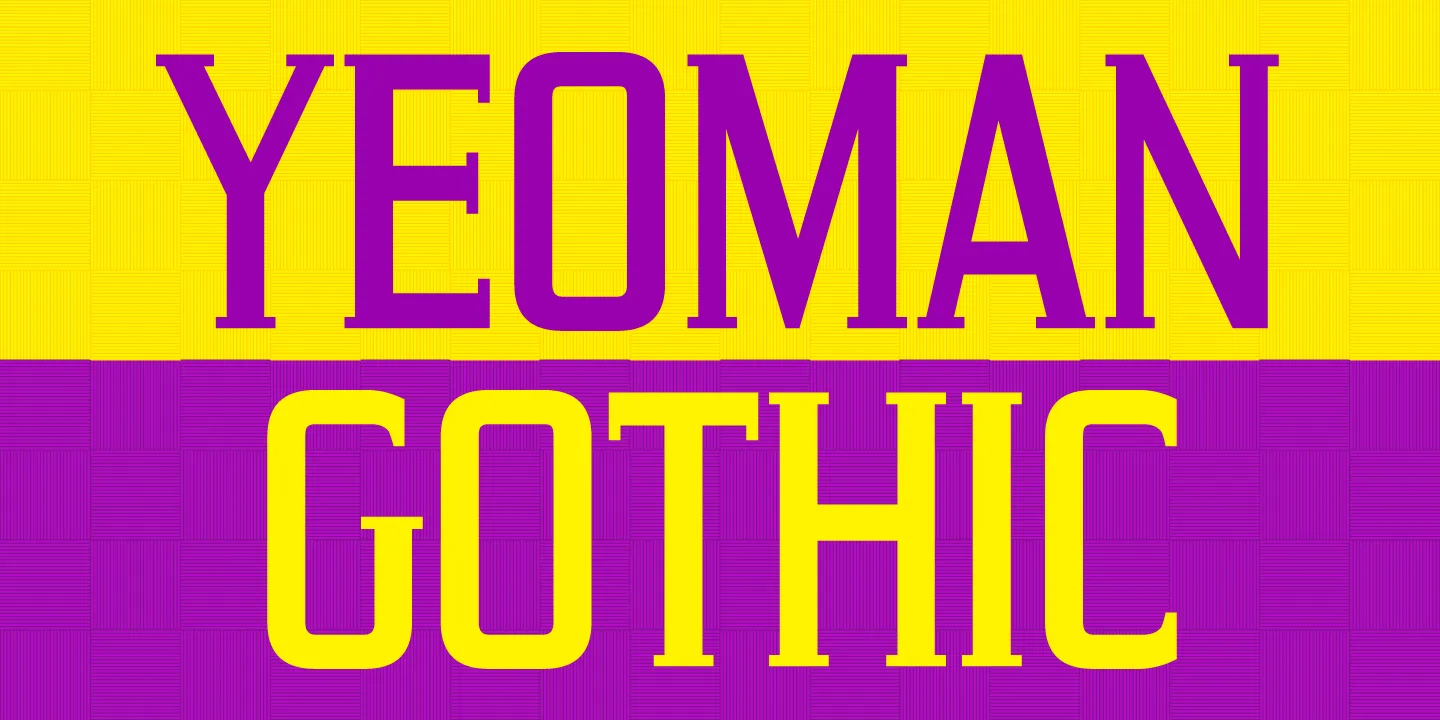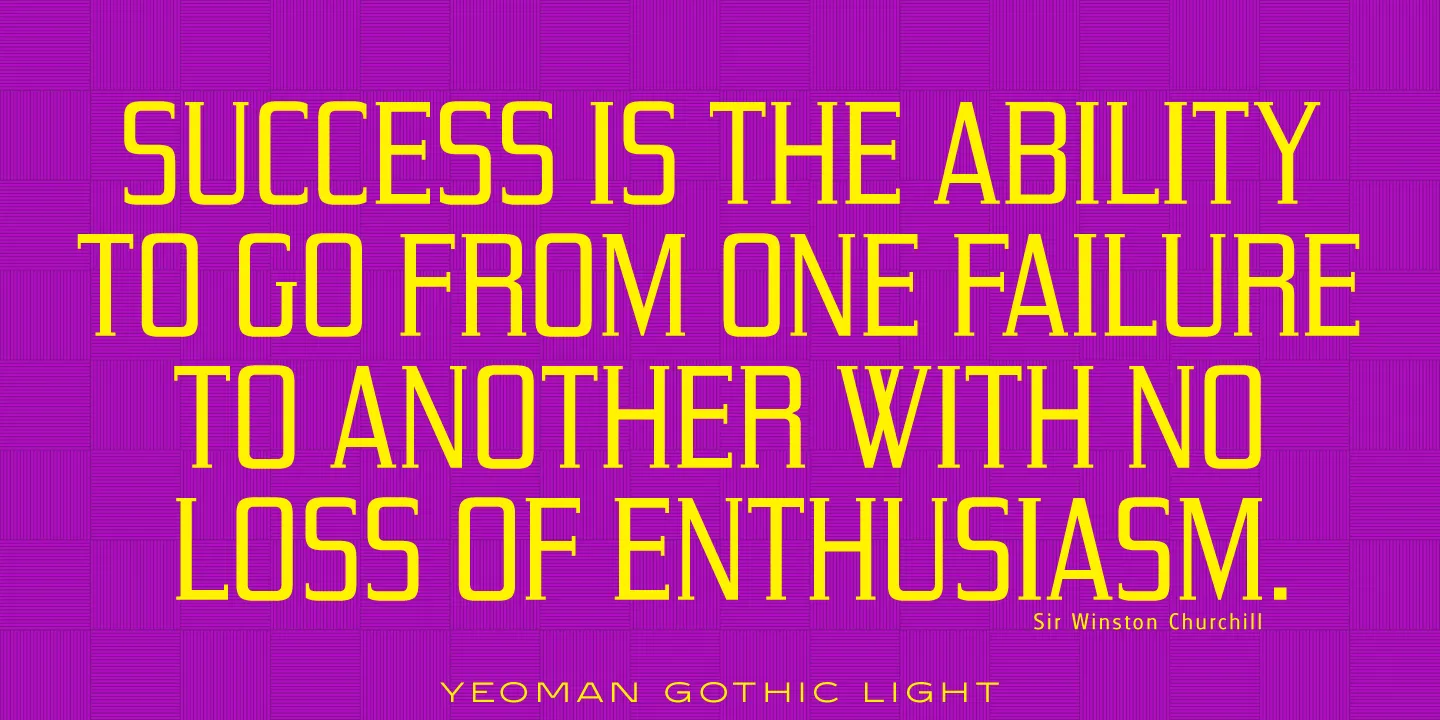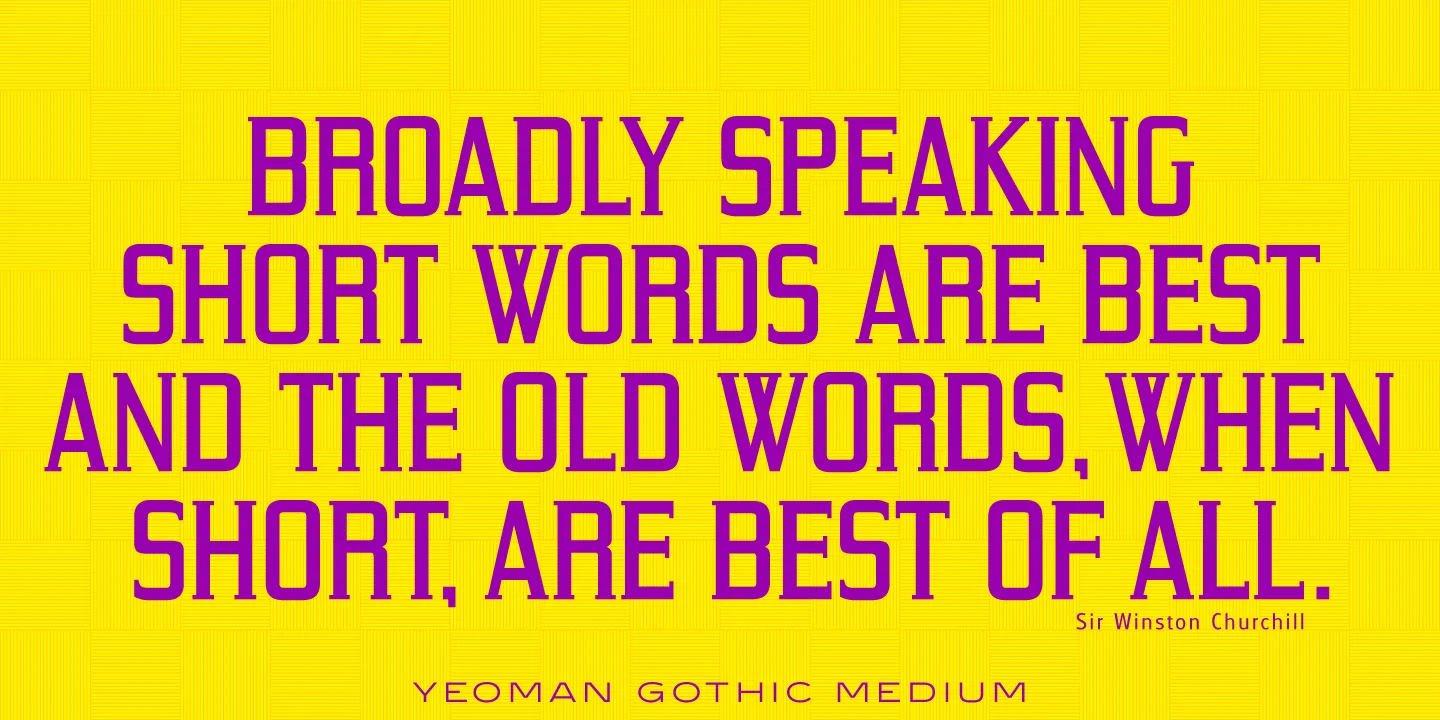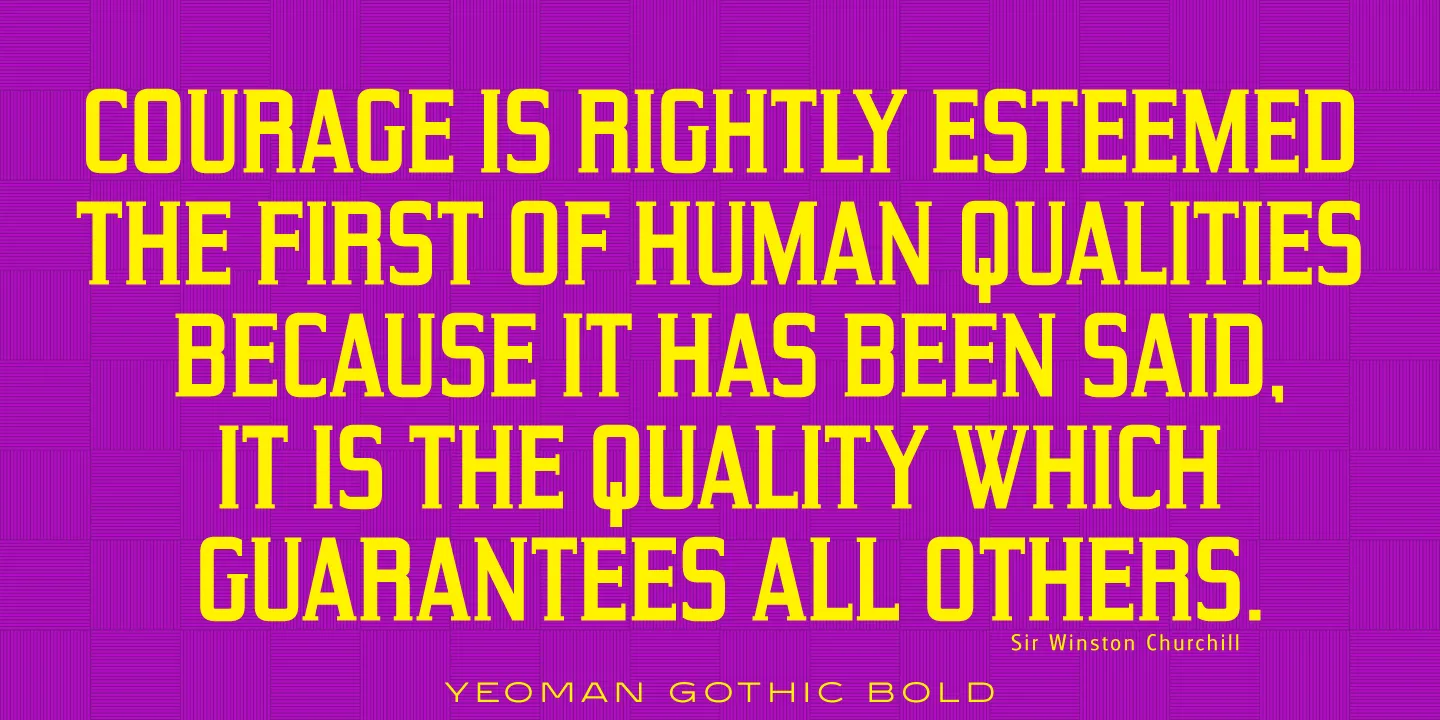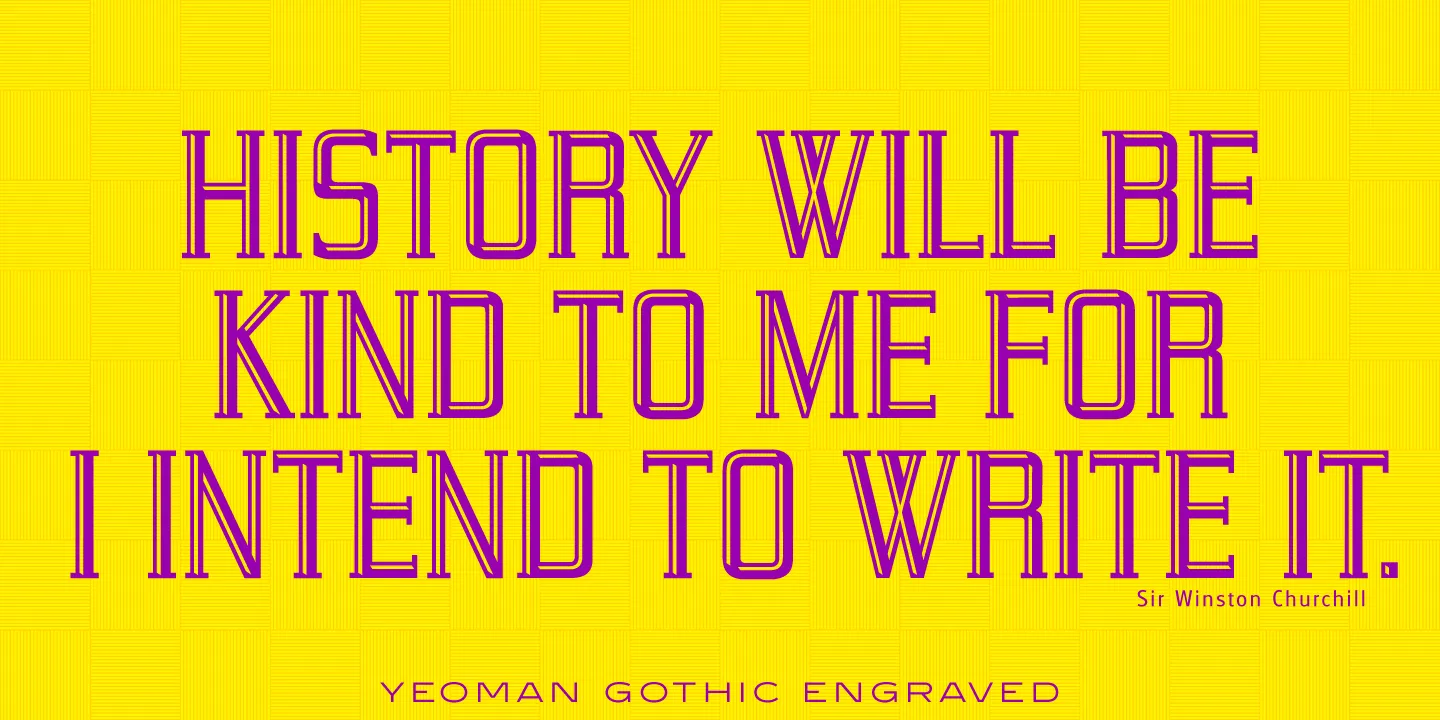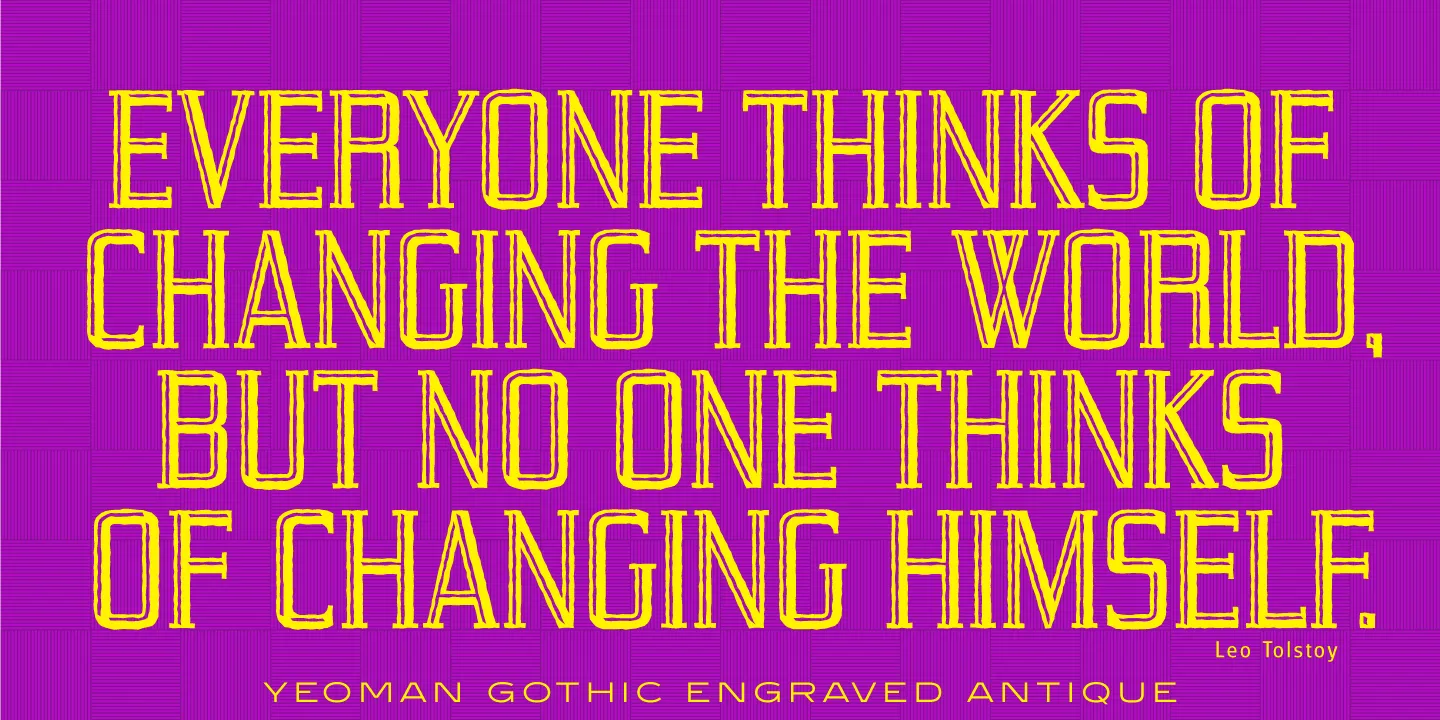
Yeoman Gothic Font Family
Yeoman Gothic is a glyphic font family that was designed by Steve Jackaman in 1997 exclusively for ITF’s Red Rooster Collection. It was inspired by an early wood type design, and is a condensed, geometric typeface with a masculine feel. Projects that have sporty, collegiate, science-fiction, or mechanical themes benefit from including Yeoman in their rosters.